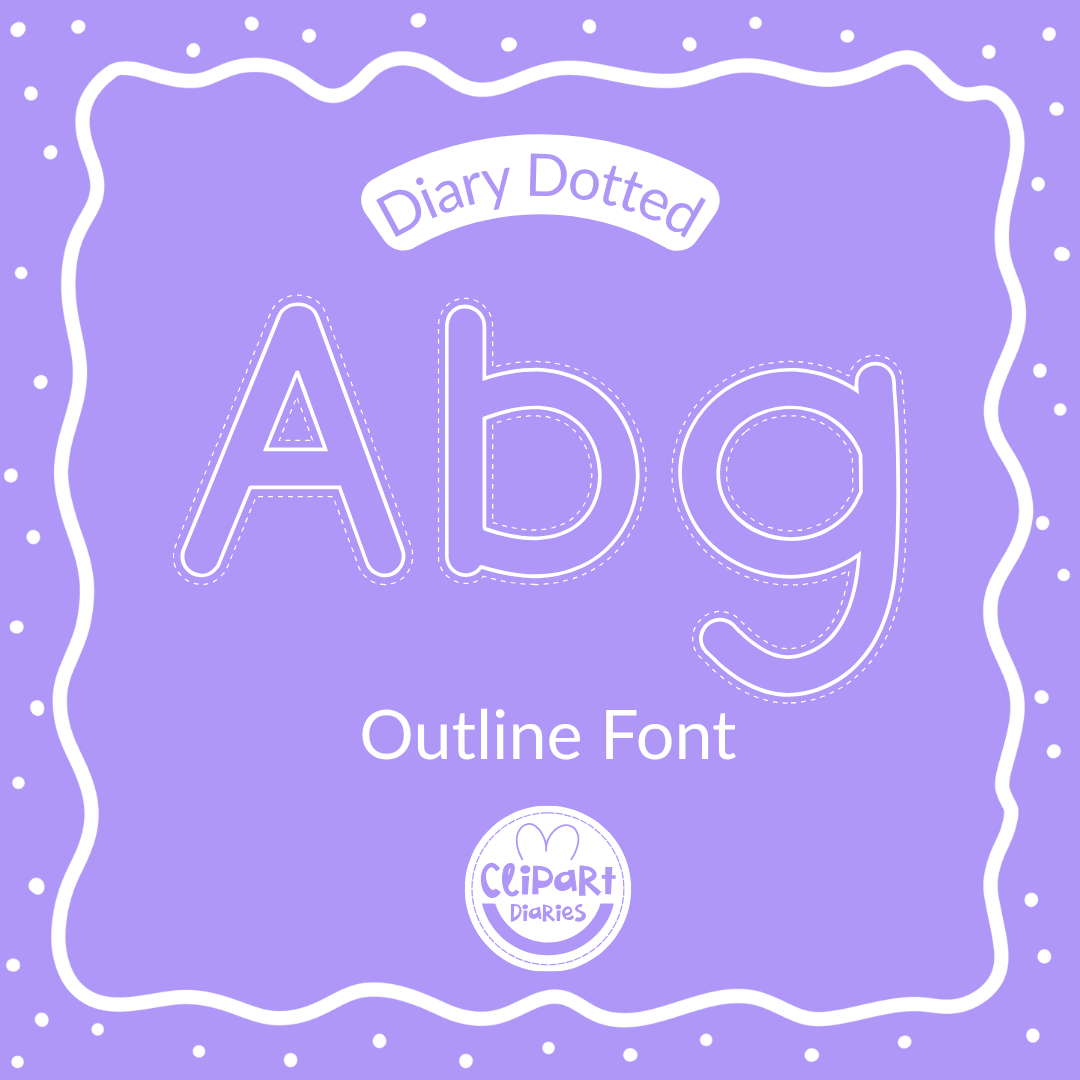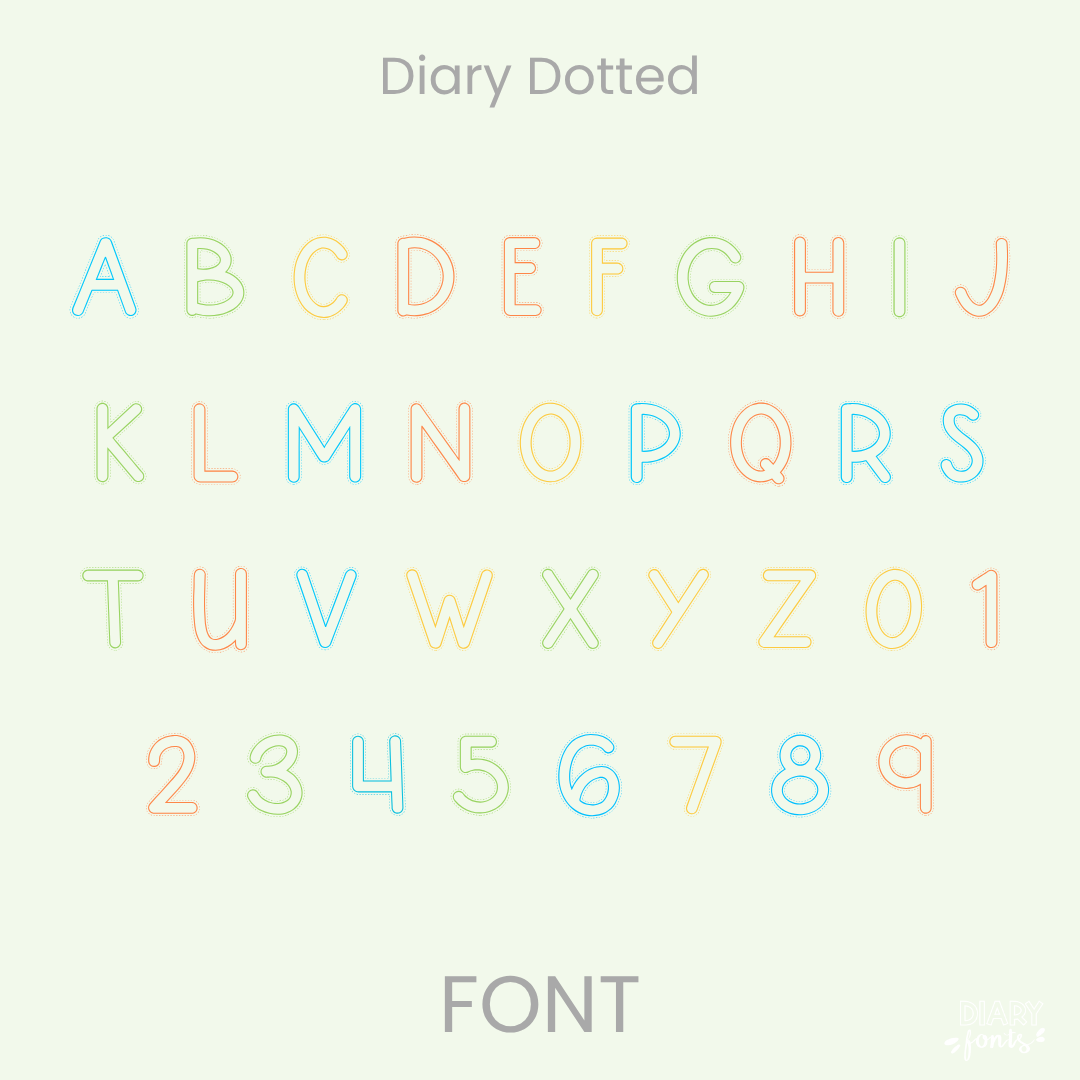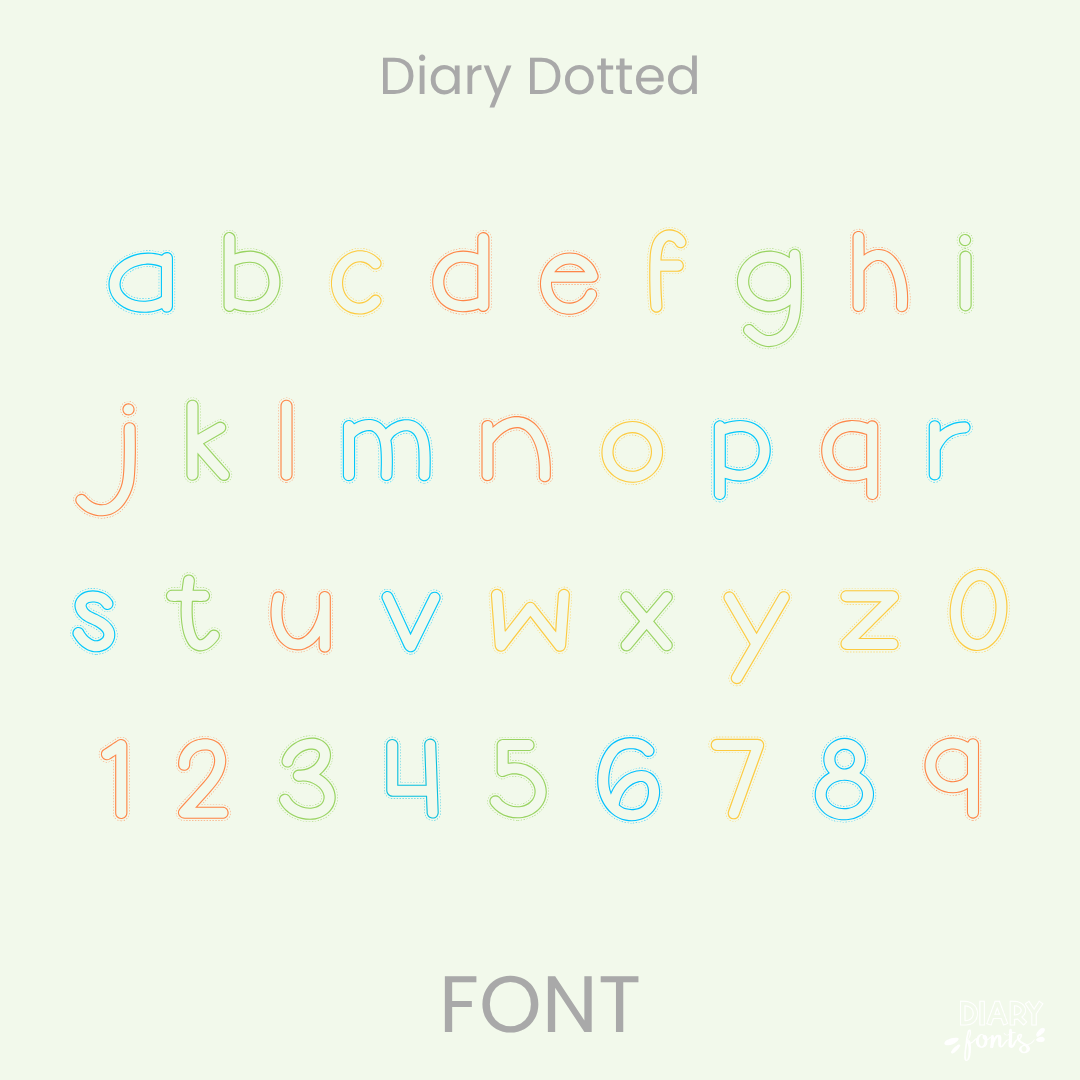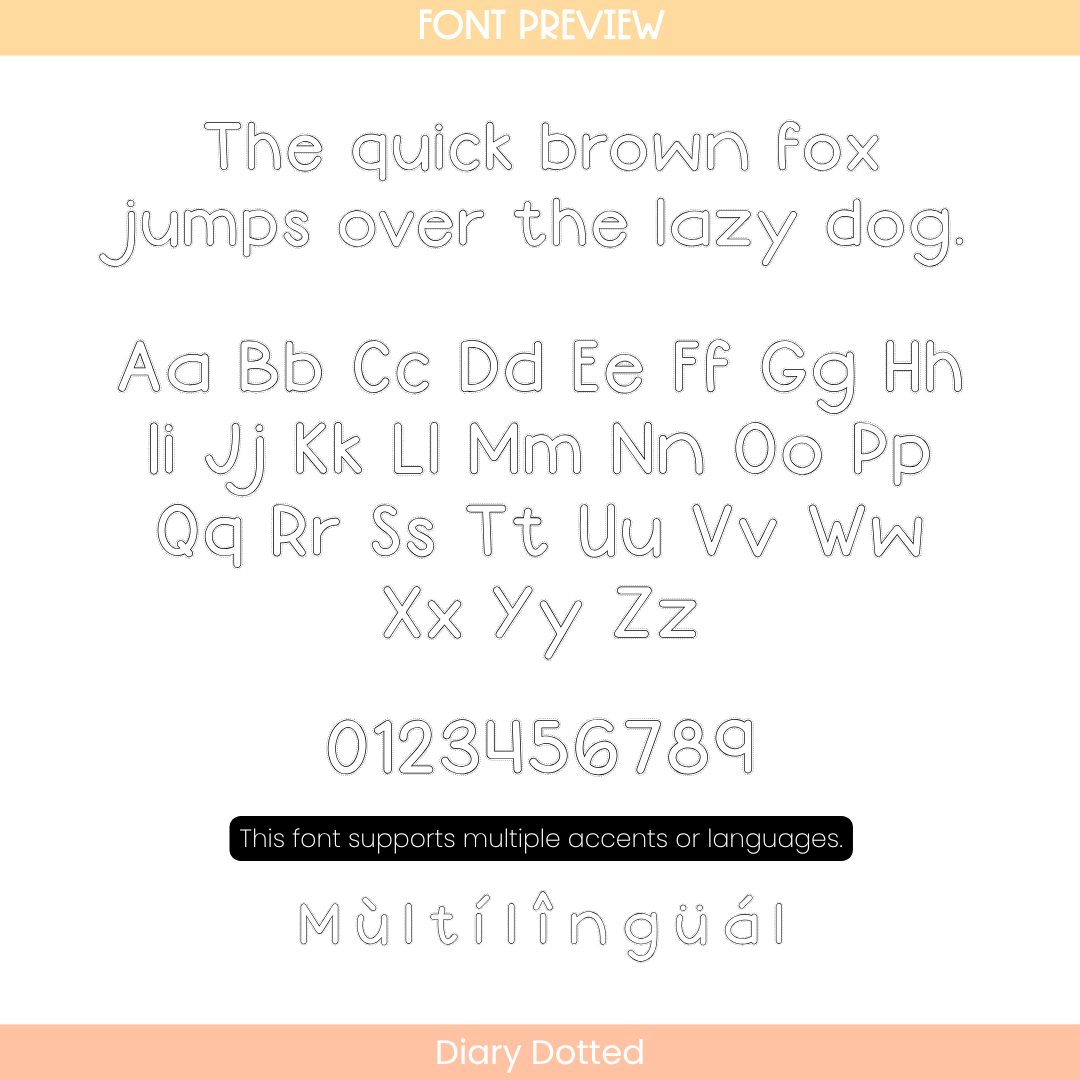
If you need a simple and reliable font for handwriting practice, Diary Dotted is an excellent choice. It features an upright, balanced print style with clear spacing, making it incredibly easy for young learners to follow and track. The letterforms are completely uncomplicated and maintain a very tidy and organized appearance on the page, serving as a perfect visual tool for tracing exercises, alphabet practice sheets, and primary school resources where legibility is the top priority. The font includes a full set of uppercase and lowercase letters, numbers, and multiple accents to support different languages. It is ready for use in Canva, MS Office, and Adobe Apps, and it works flawlessly on the iPad with GoodNotes and Procreate. Whether for personal projects or commercial resources, this font provides a polished and professional hand-drawn aesthetic to your work.